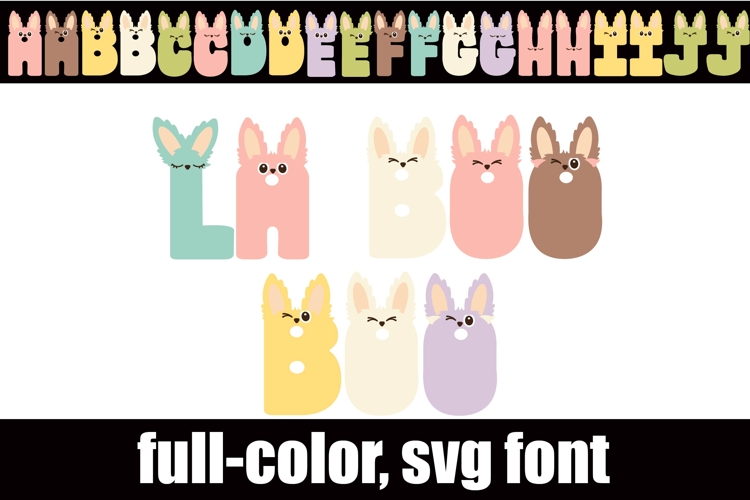
La Boo Boo Color Font
This full-color, whimsical font is a fun sans serif that look like big-eared creatures. There is an alt case of additional colors of each letter that you can access through your system's character map.